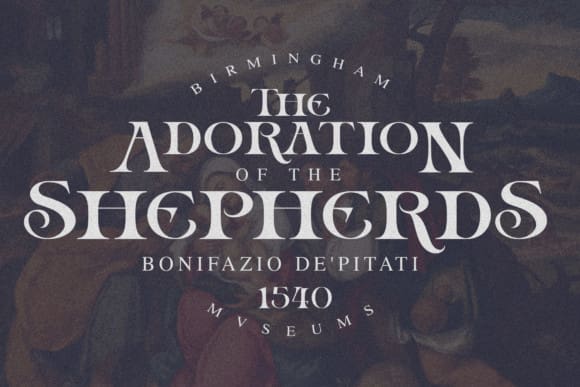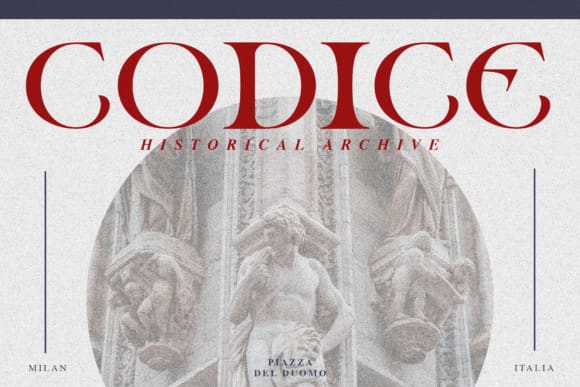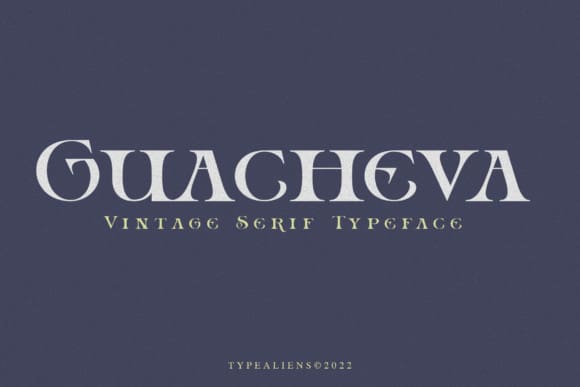
Guacheva Font
Guacheva Font is a serif-based font that looks more vintage and slightly feminine, with long hooks and curved elements that make it look a little more flexible and less rigid. It will be very suitable for art and elegant themed designs. This font is an all caps font with a height difference between its Uppercase and Lowercase. So even though it’s a little feminine, it still looks sturdy and thick, because this font has bold characteristics too.